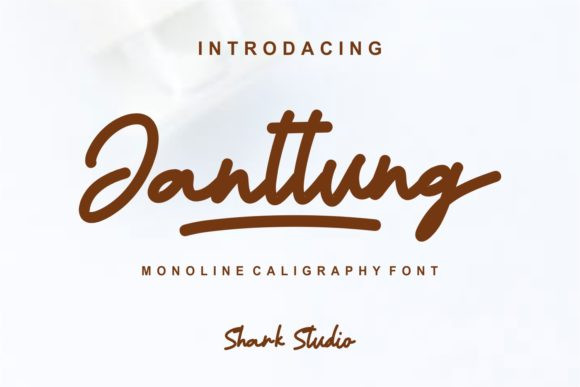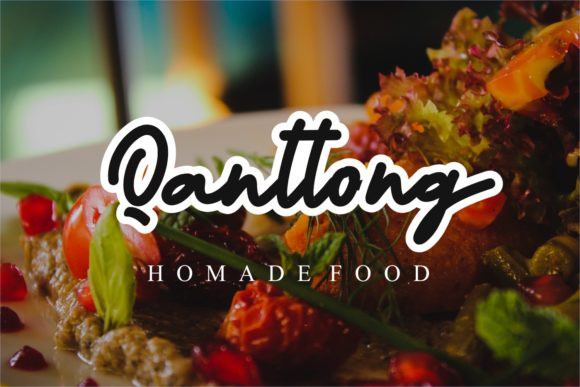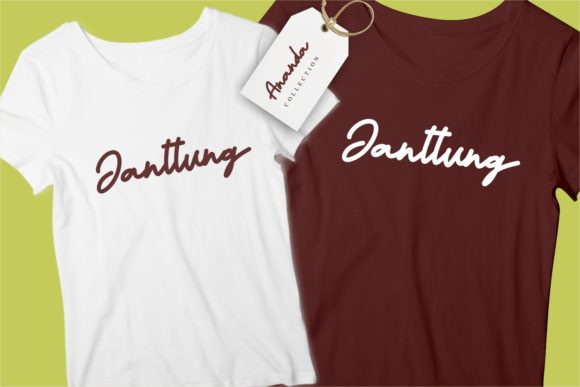
Janttung Font
Janttung is an elegant monoline font that is accompanied by a very natural style. This font has a completely natural shape and it will match a wide range of designs!